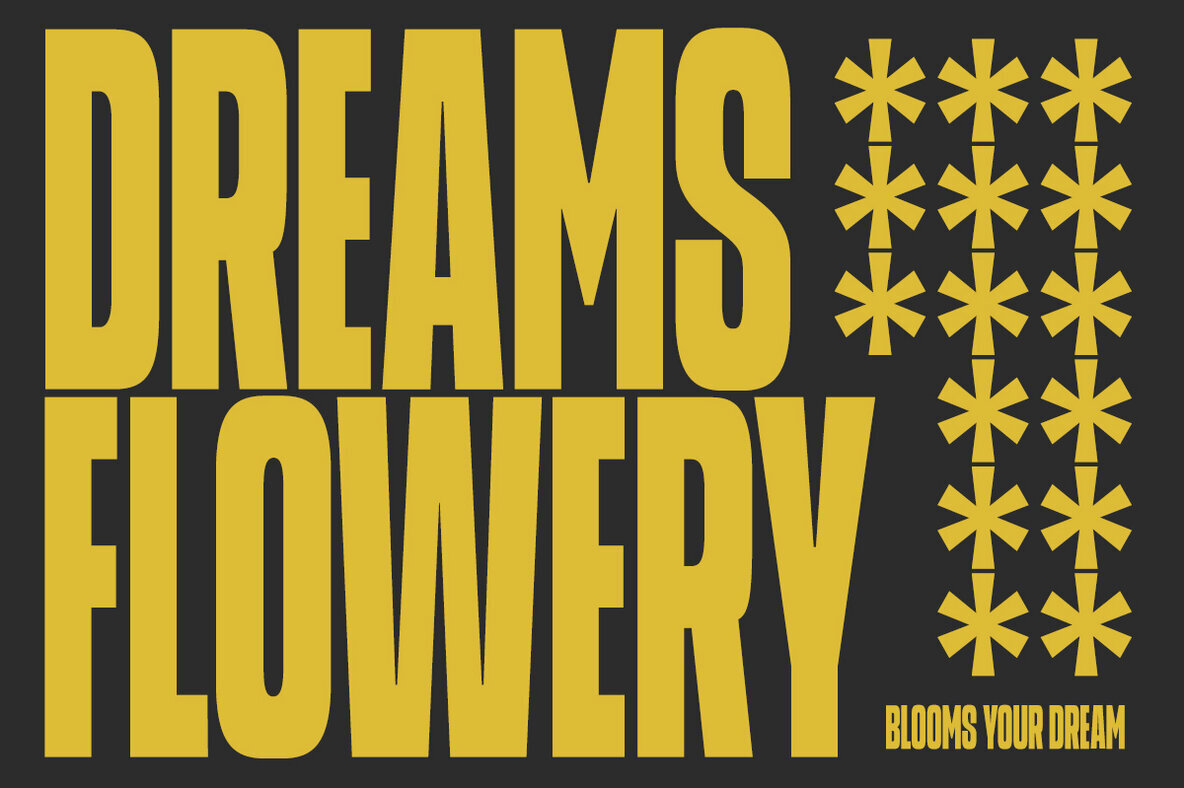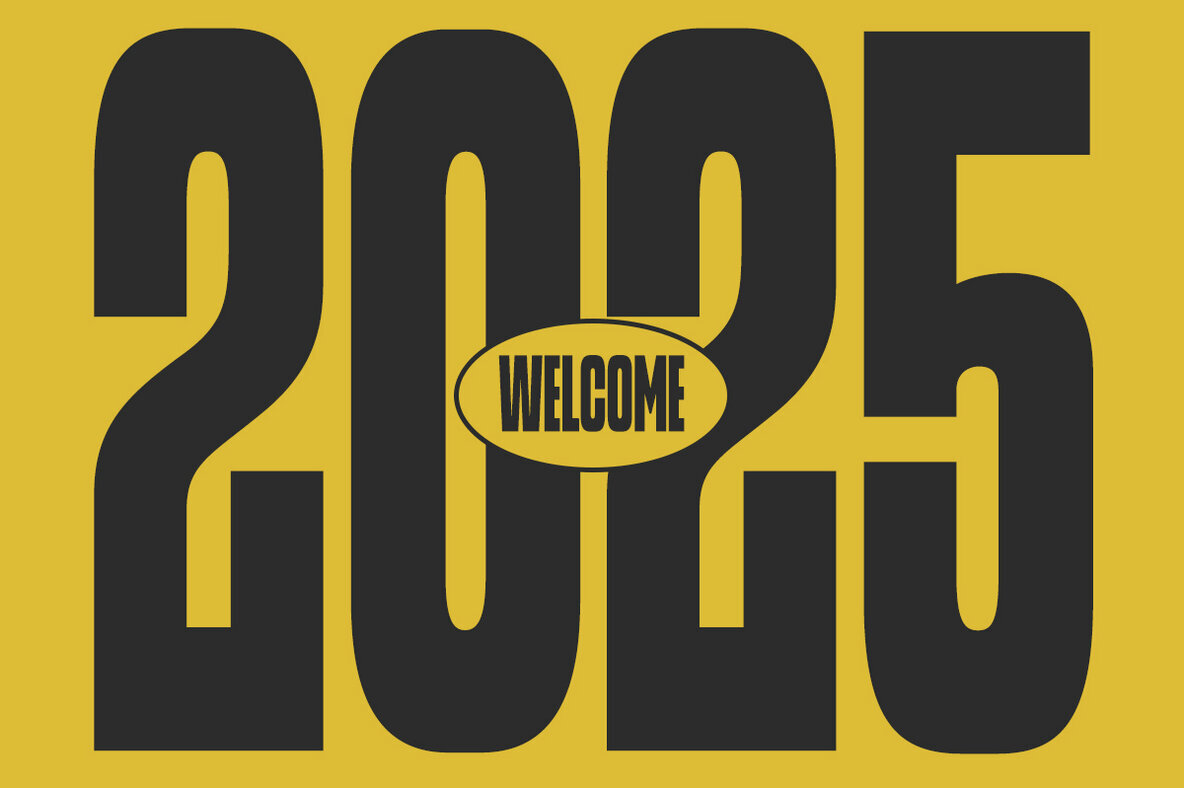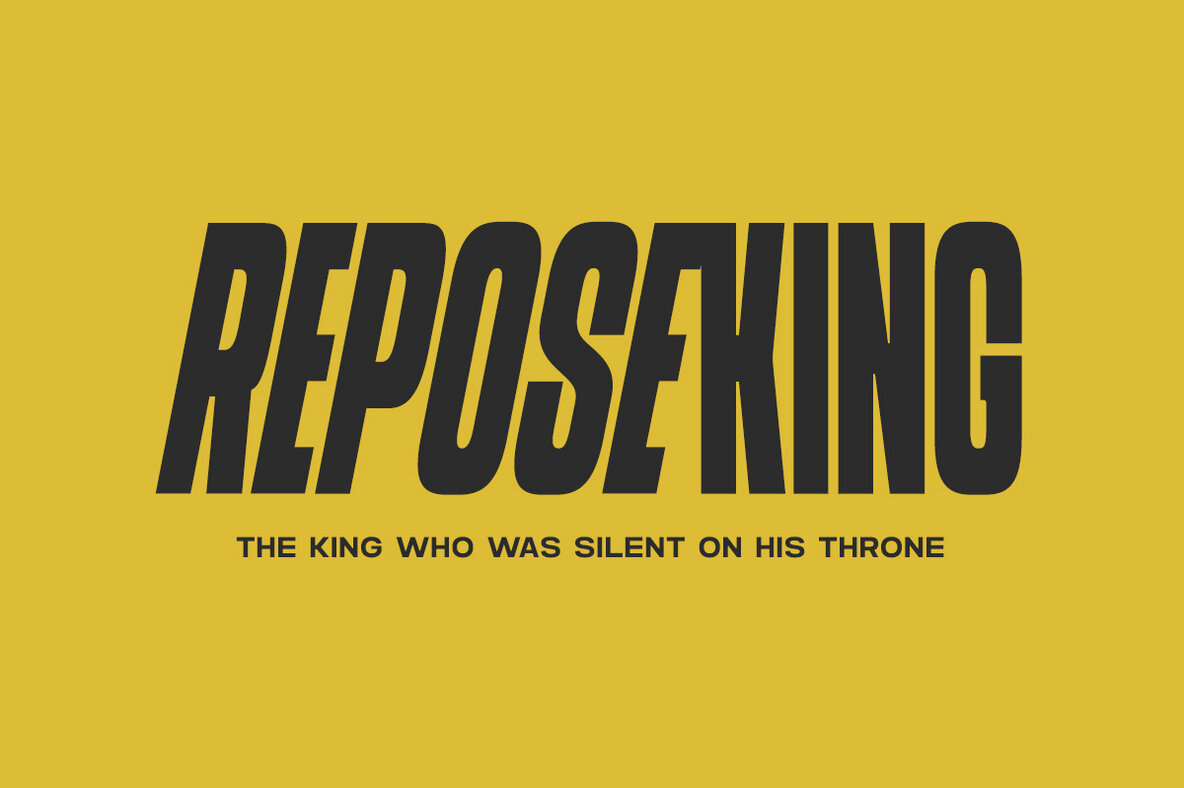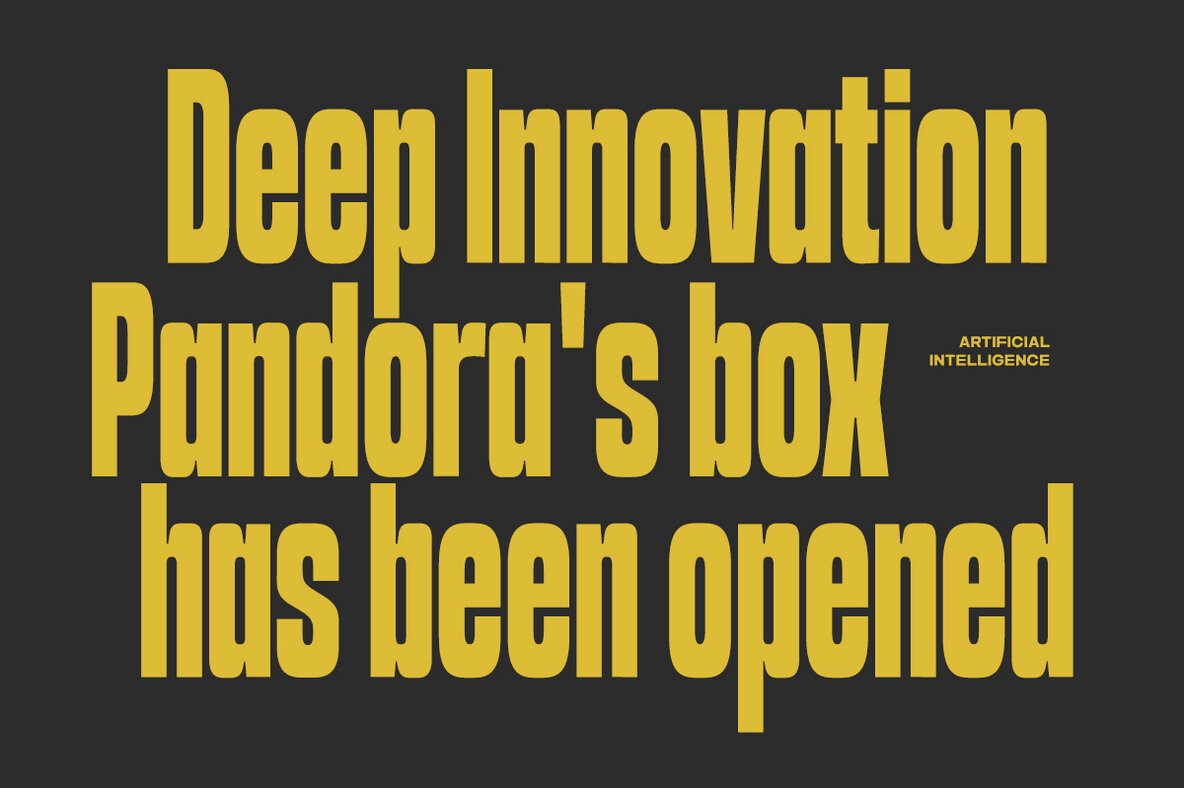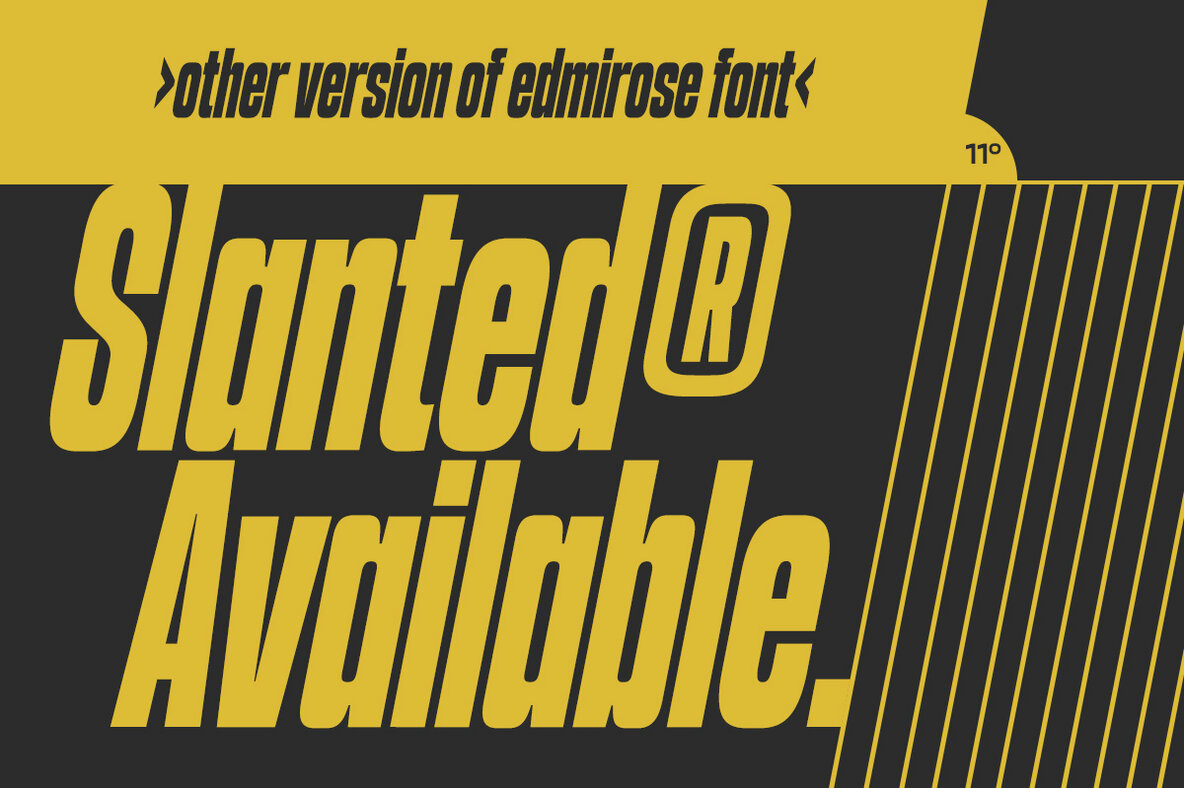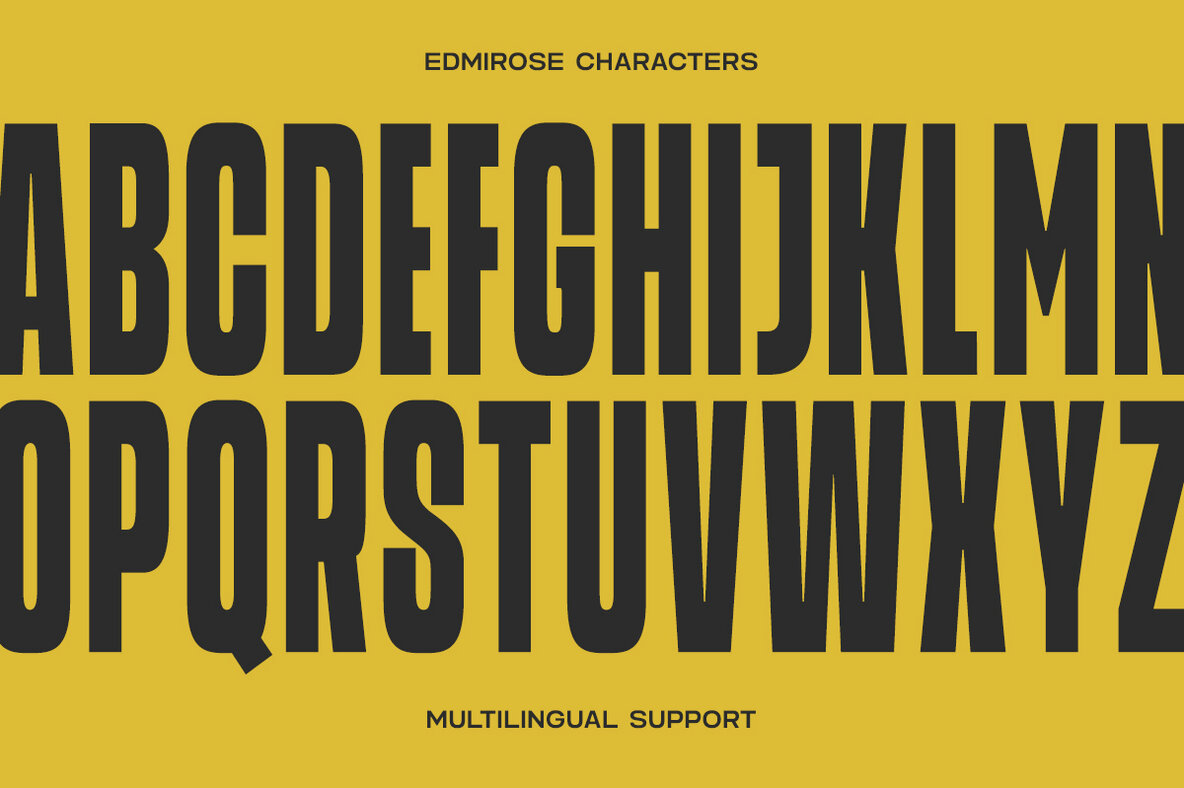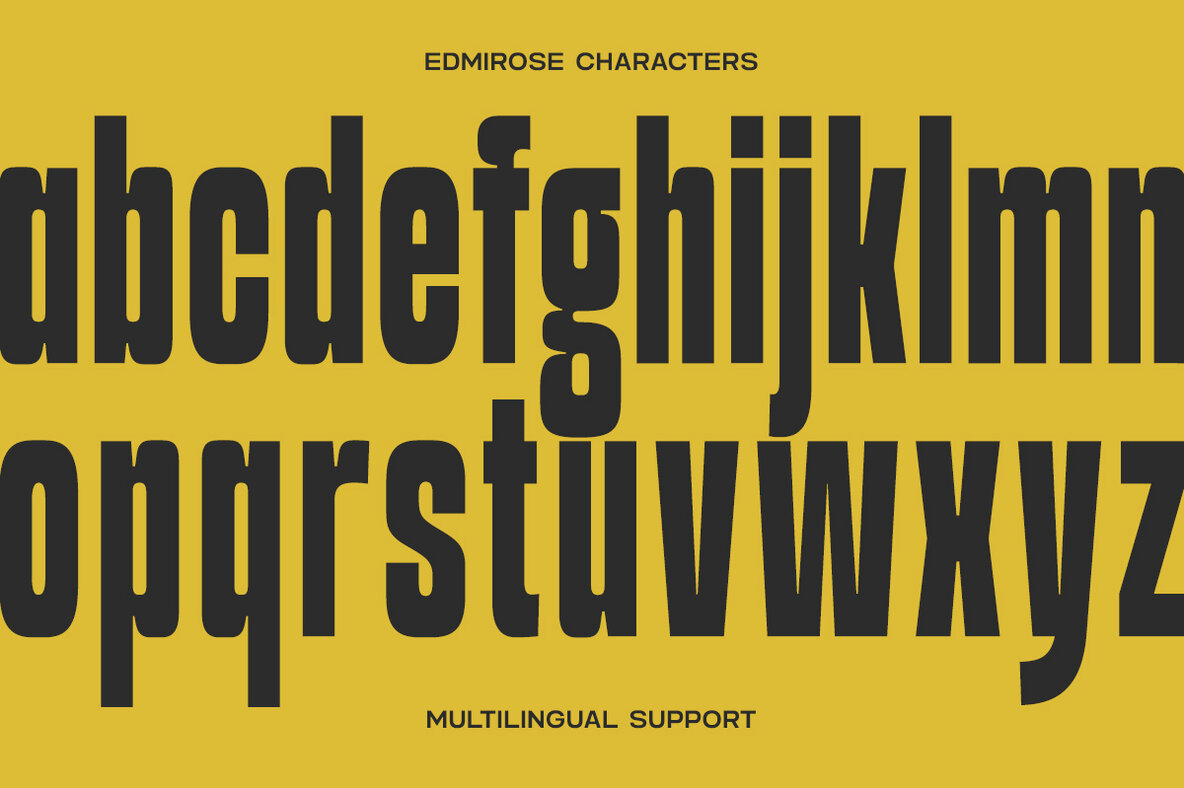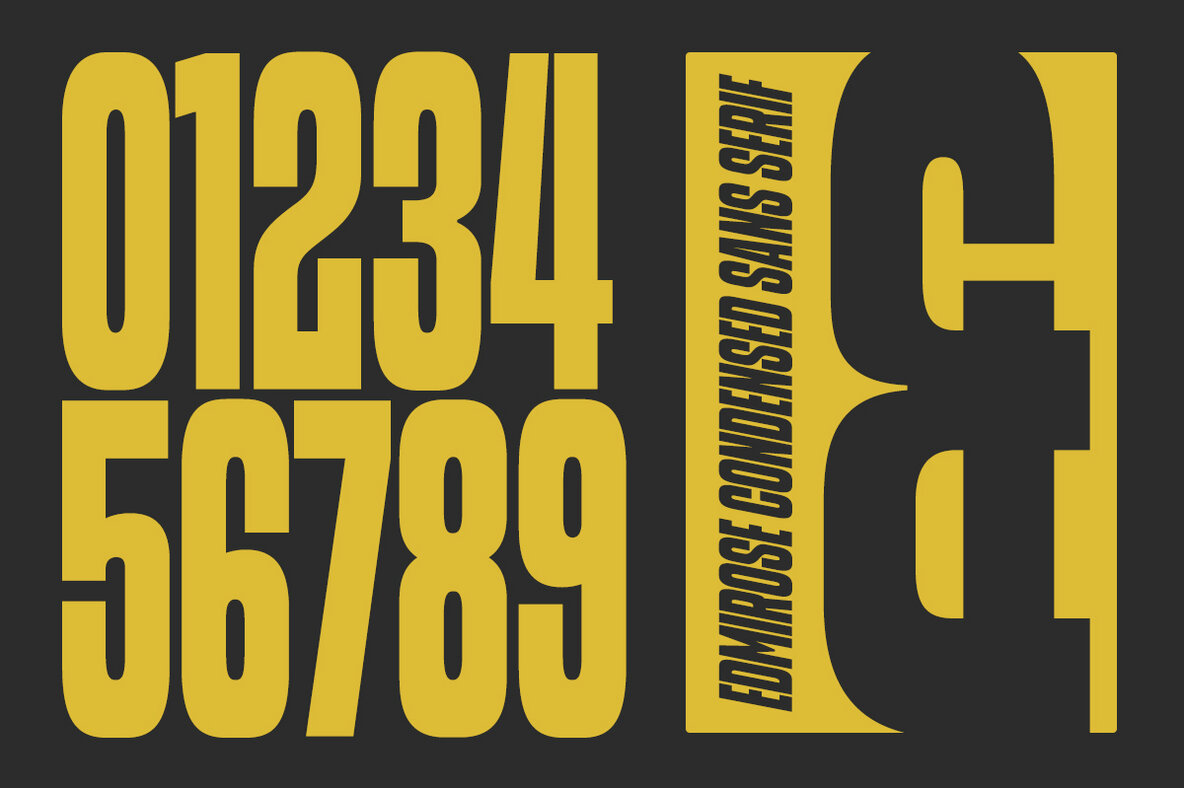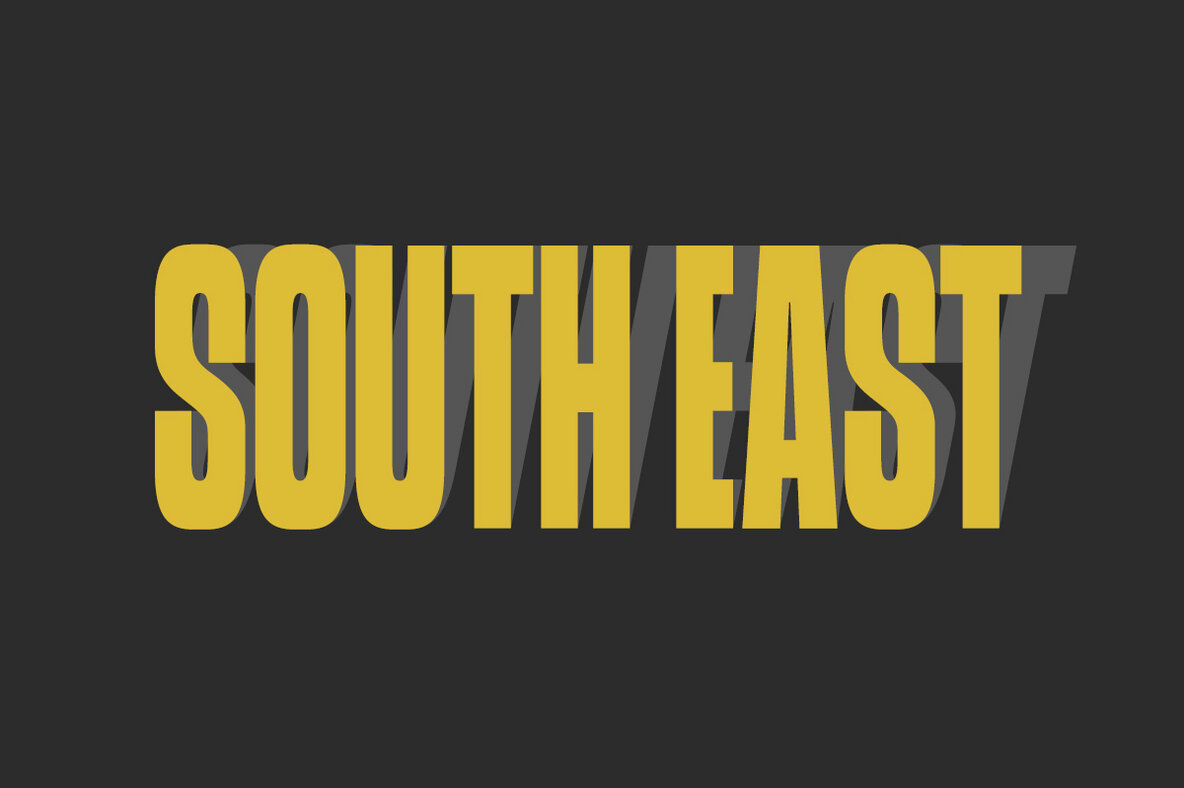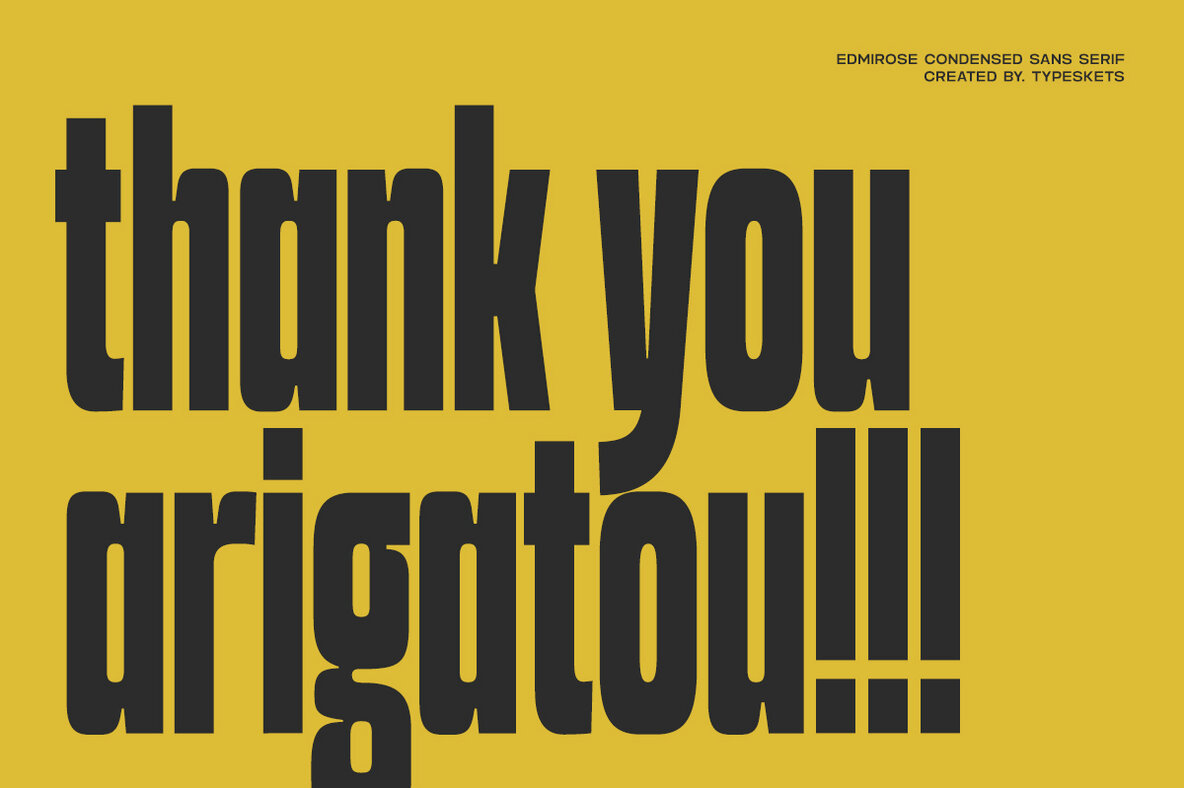
Edmirose Font
Edmirose is a sleek, versatile condensed sans-serif font tailored to fit a range of design needs. It comes in two distinct styles: Regular and Slanted, each providing a bold and modern aesthetic. This font is ideal for applications such as branding, posters, headlines, and packaging, delivering a professional and stylish edge to any project.
With strong character and well-balanced proportions, Edmirose enhances design projects, ensuring they stand out with a polished appearance. The font includes both uppercase and lowercase letters, and it supports multiple languages, making it adaptable for diverse design requirements.